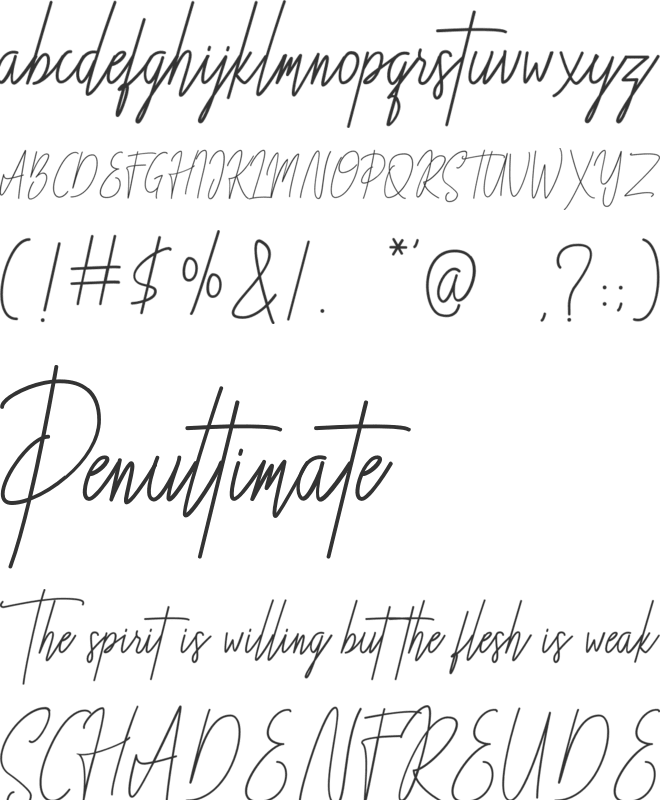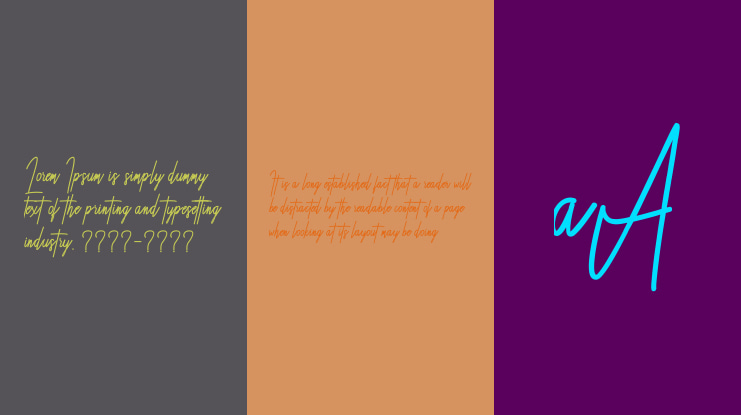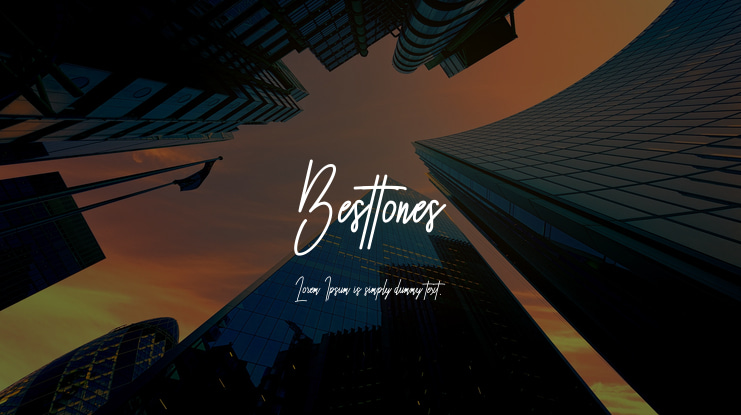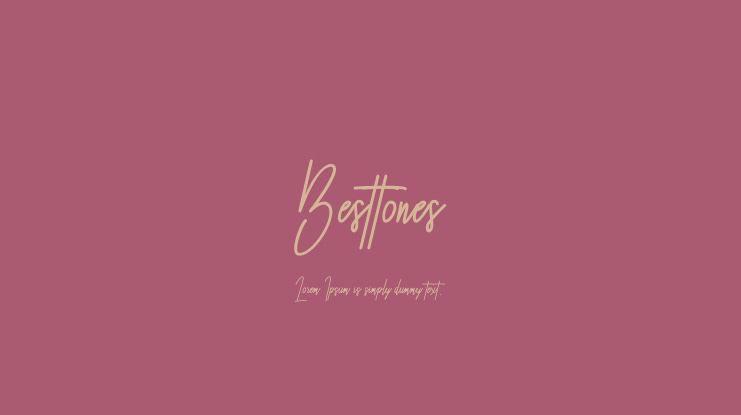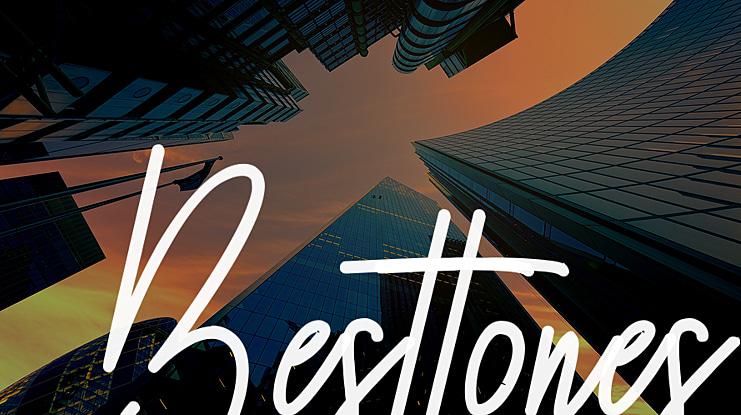
Besttones Font Family
Introducing of our new product the name is Besttones Luxury Signature Font. Inspired by signature and stylish handwriting, perfect for many different project such as logos & branding, invitation, stationery, wedding designs, social media posts, advertisements, product packaging, product designs, label, photography, watermark